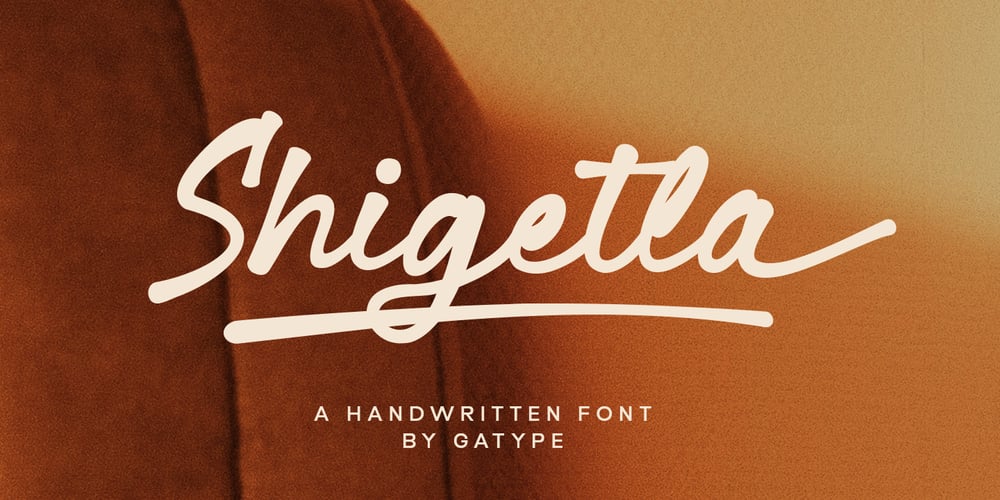
Shigetla
Shigetla font
Shigetla Font Family was designed by khaidir and published by Gatype. Shigetla contains 1 styles and family package options. Shigetla comes with an extreme Brush cut, sharp corners and interactive straps. The affected characters are spread across three capital-specific sub-families, with different styles, and different personalities. Bold character separation and considered binding standards create a type that is sturdy, modern and attractiveShigetla is a modern stylish brush font, each letter has been carefully crafted to make your text look unique.Feel free to message me if you have any questions!